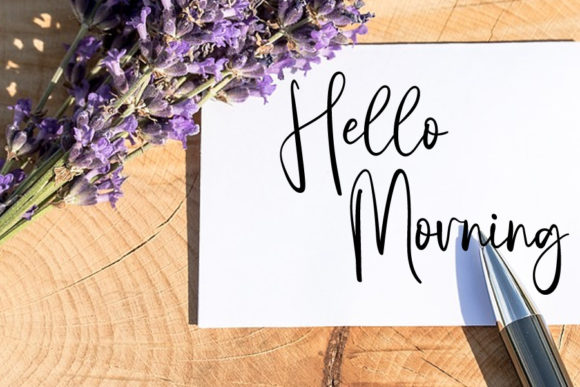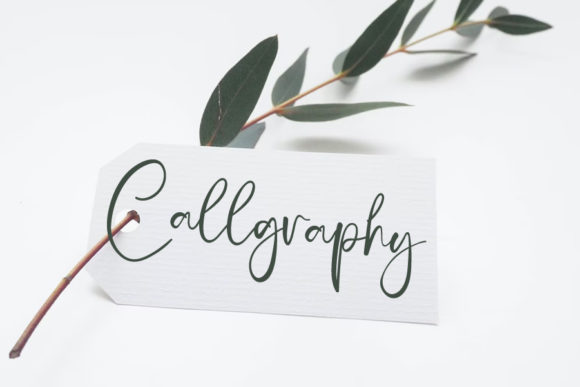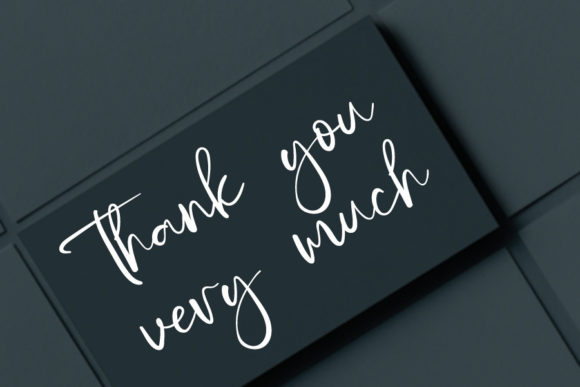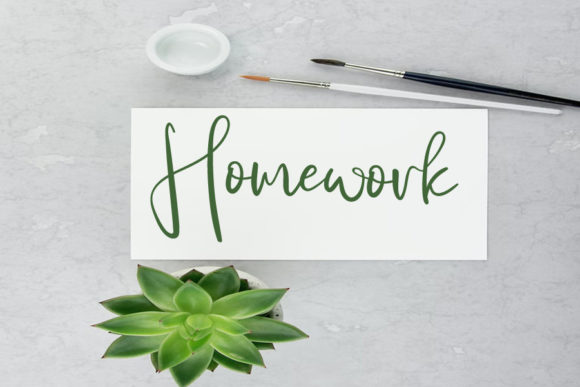
Jully Signature Font
About Jully Signature Font
Jully Signature is a stylish and dainty script font. It is suitable for any projects such as: logos, branding projects, label, photography, watermark, special events, and all your other lovely projects that need a beautiful script taste.